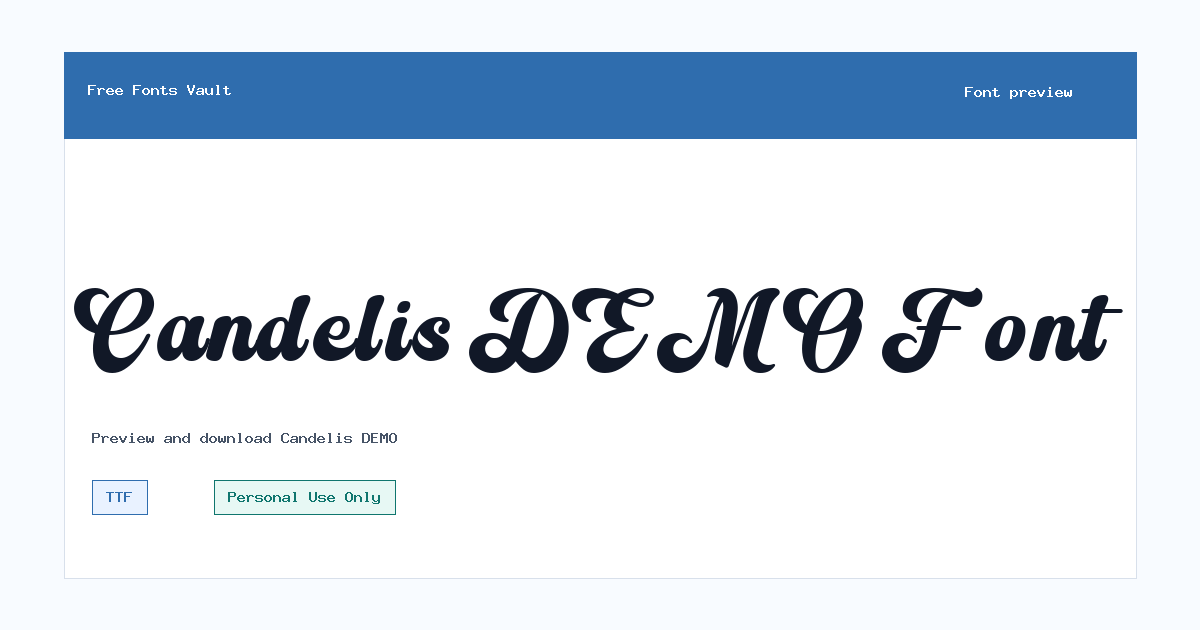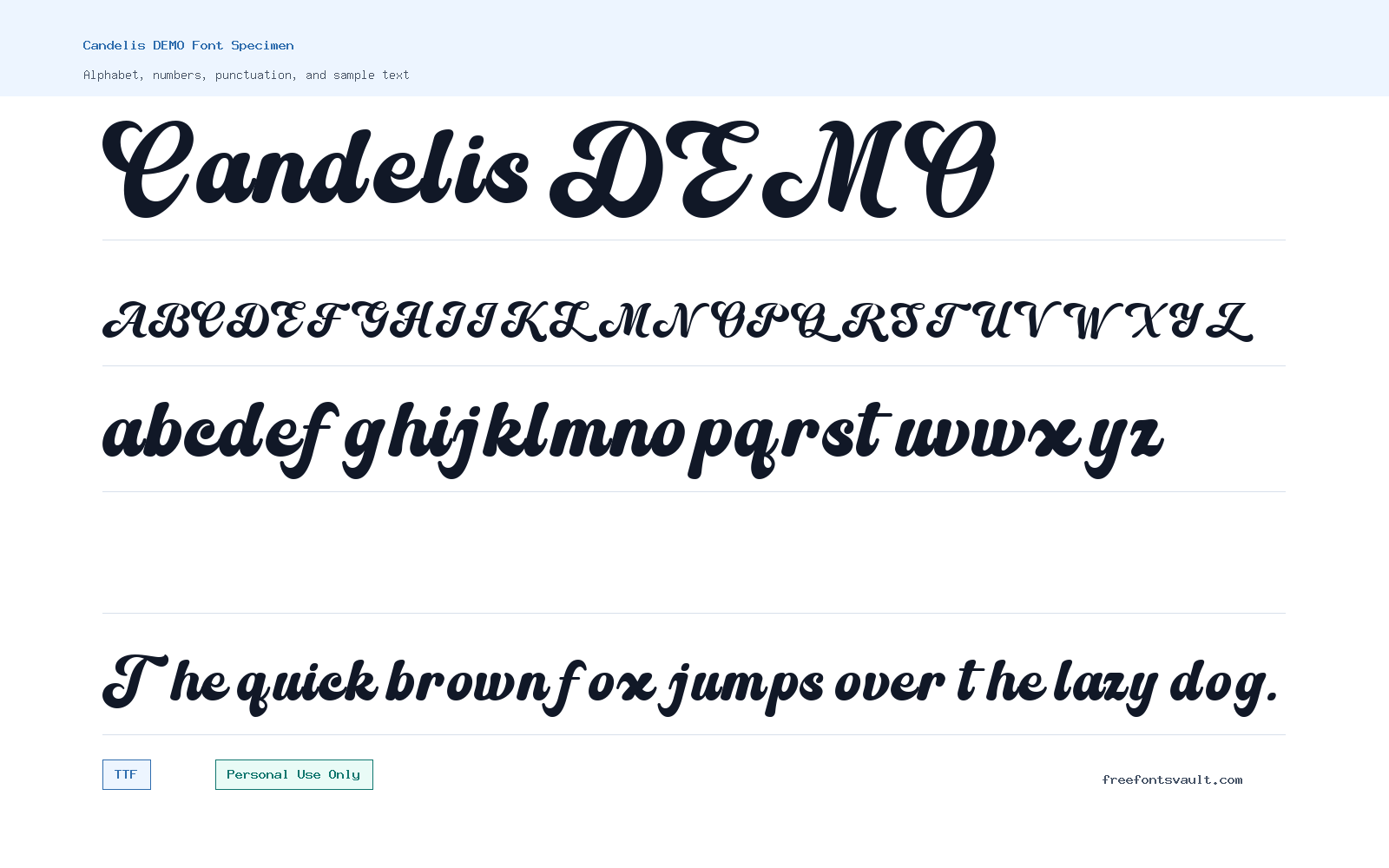
Candelis DEMO
Candelis DEMO is a calligraphy script font with a decorative handwritten feel, made for designs that need a graceful, personal touch. It is licensed for personal use only, so check the license before using it in any client, business, or commercial project.
Candelis DEMO has the look of a flowing script typeface, with a style that works best when the words are given room to breathe. Fonts like this are usually strongest in short settings: names, titles, invitation text, packaging mockups, social graphics, quote images, and branding drafts. Because the design is calligraphic, it is better suited to display use than long paragraphs. Try it at larger sizes first, then check whether the curves and joins stay clear at the size you need.
Use the preview box to test the exact words you plan to design with. Script fonts can change character depending on the letters placed next to each other, so names, initials, repeated letters, and mixed uppercase/lowercase text are worth checking before download. For cleaner layouts, pair Candelis DEMO with a simple serif or sans serif font. Let the script handle the expressive part of the design, and use the simpler font for dates, addresses, descriptions, menus, or any text that needs fast reading.
- Calligraphy script style for decorative titles and short text
- Best used at display sizes where the letter shapes remain clear
- Works well with simple companion fonts for balanced layouts
- Wedding invitations and personal event stationery
- Name designs, monograms, and signature-style headings
- Quote graphics, social posts, and printable decor
- Logo concepts, packaging mockups, and personal branding drafts
For best results, use Candelis DEMO in short phrases rather than body text. Test your exact wording in the preview, especially names and mixed-case text, and pair it with a plain serif or sans serif for supporting information.
What kind of font is Candelis DEMO?
Candelis DEMO is a calligraphy script font. It is best for decorative text such as names, headings, invitations, quotes, and display graphics.
Is Candelis DEMO good for long paragraphs?
It is better for short display text. For paragraphs, menus, or detailed information, pair it with a simpler, more readable text font.